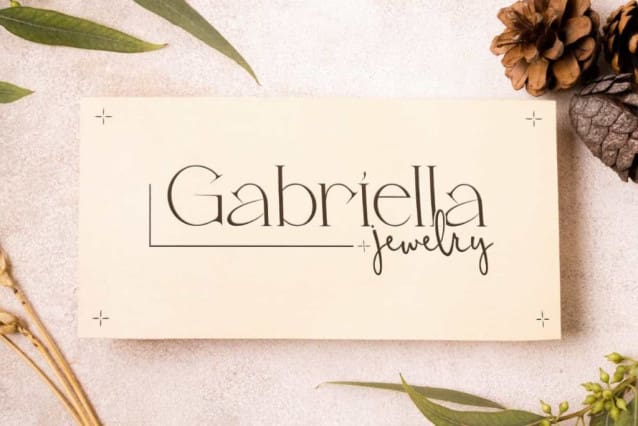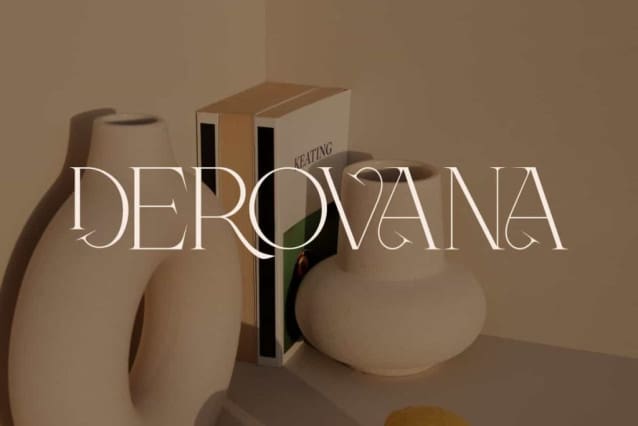
Derovana Font
Derovana Font is a unique sophisticated serif display font by VinType Studio. This font has an elegant appearance with thin lines that add to its charm. It will suits many designs, such as cover, custom design, gift box, invitation, label, poster, product packaging, quotes, screen printing, signage, stationery, title, website, and more!
Derovana Font includes full set of Uppercase and Lowercase Basic Characters, Numerals, Punctuation, and Symbol. This font is perfect for you who looking for fancy font, so it will be suitable for many industries, such as accessories and jewelry, advertising, beauty product, craft, event or wedding organizer, fashion, florist, home furniture, perfume, resort, restaurant, etc.